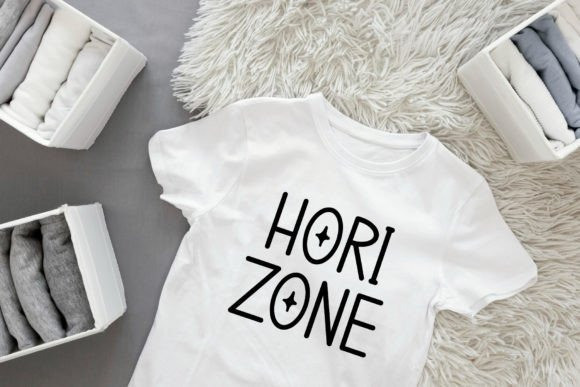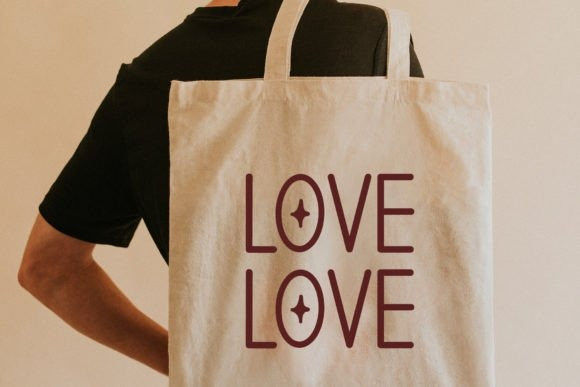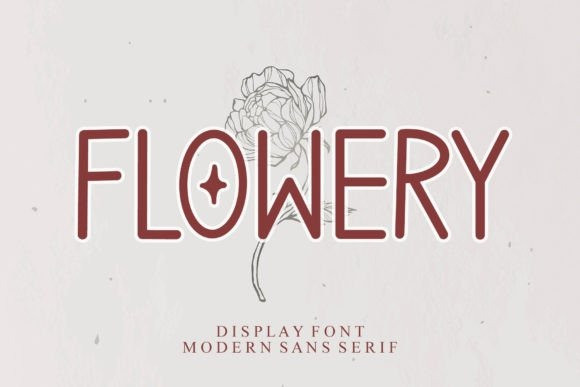
Flowery Font
Flowery Font is a modern sans serif font. This font is perfect for logos, greeting cards, package design, brand identity, craft designs, any DIY projects, book titles, wedding invitations, packaging, and more.